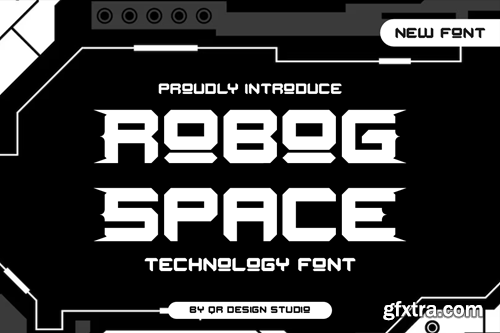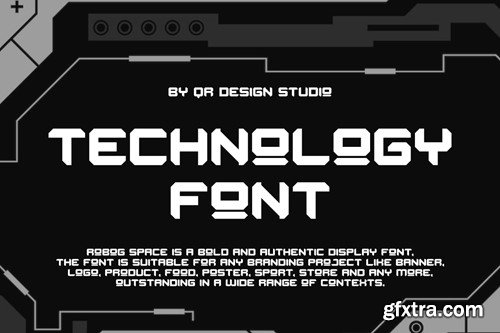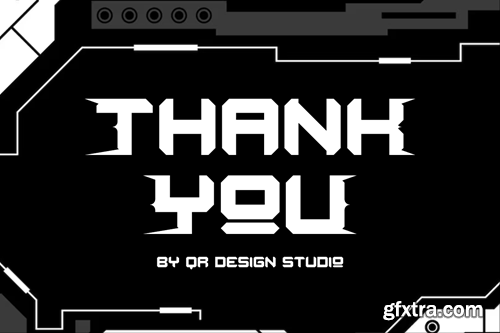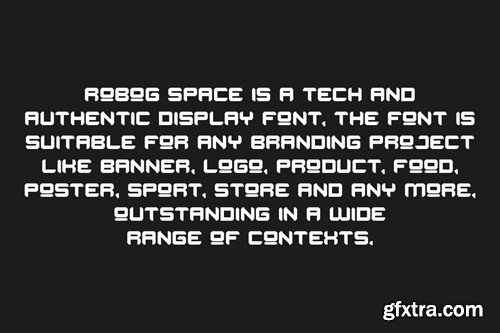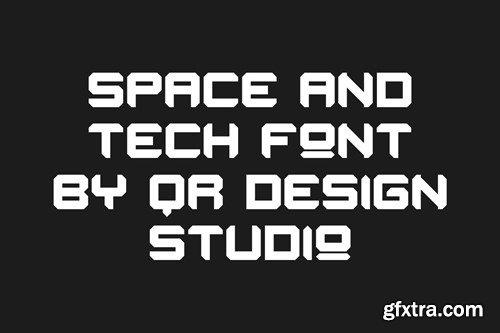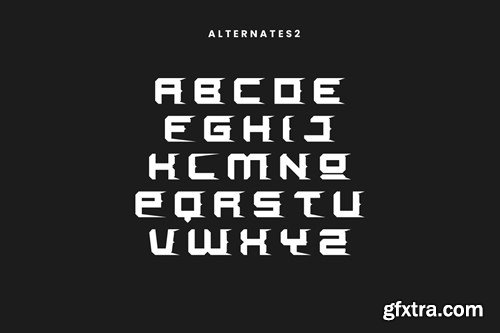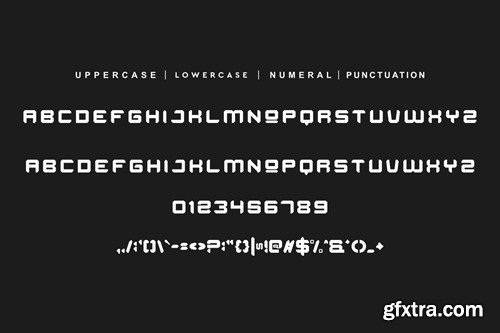
罗博格空间 - 数字 & 技术 Font CNFKVJF
Robog Space - Digital & Tech Font CNFKVJF
Robog Space - Digital & Tech Font
Robog Space - Digital & Tech Font is a bold and authentic display font. The font is suitable for any branding project like poster, logo, sport, and many more. Outstanding in a wide range of contexts.